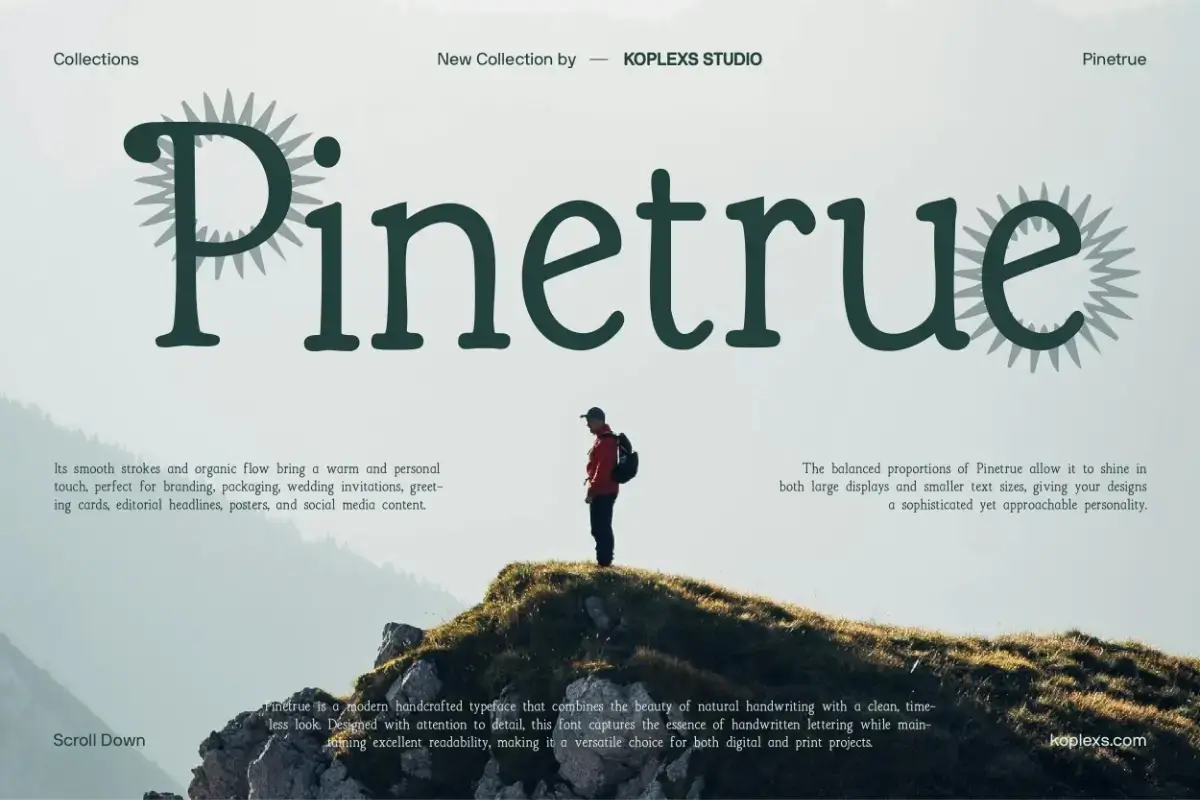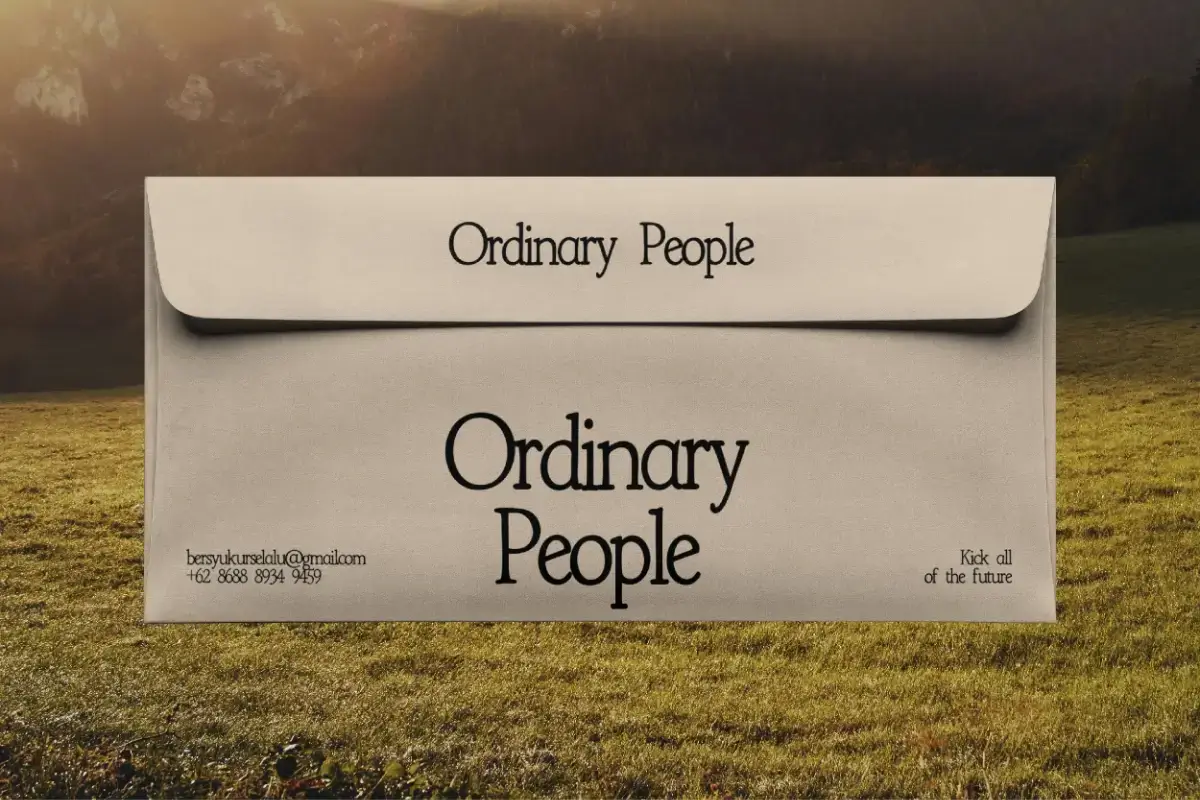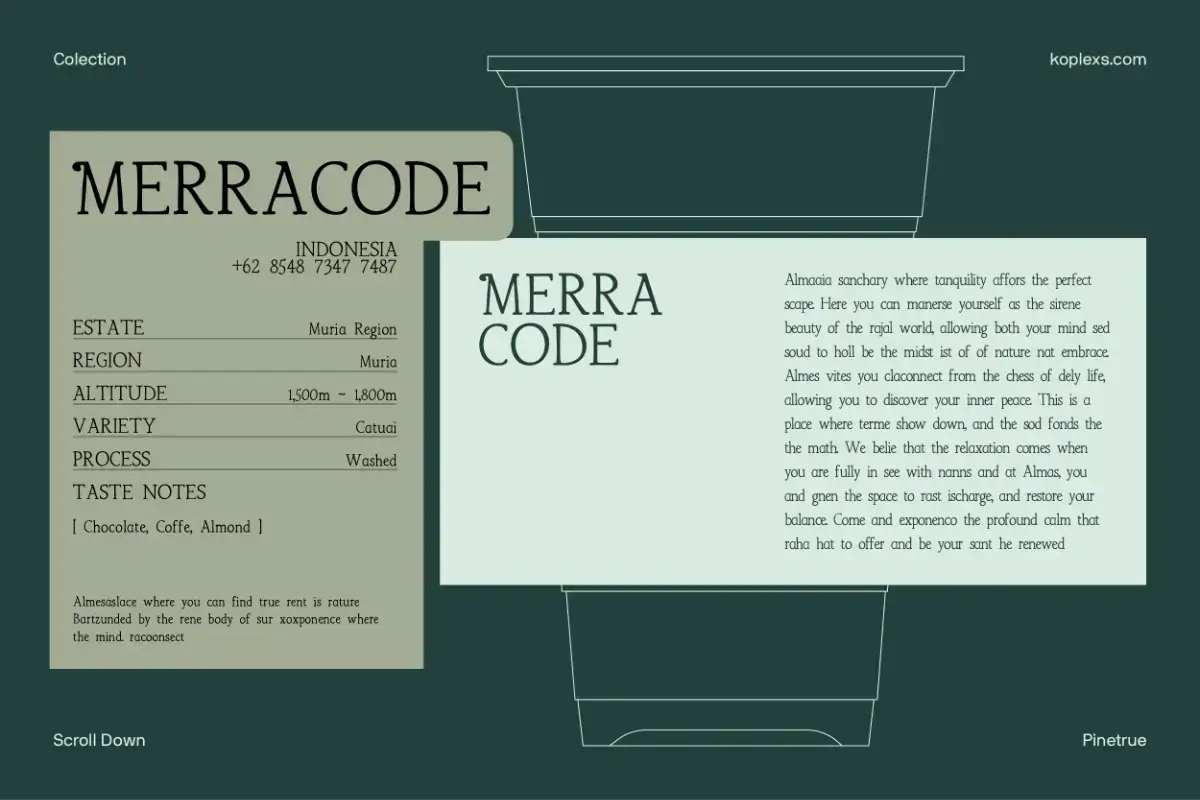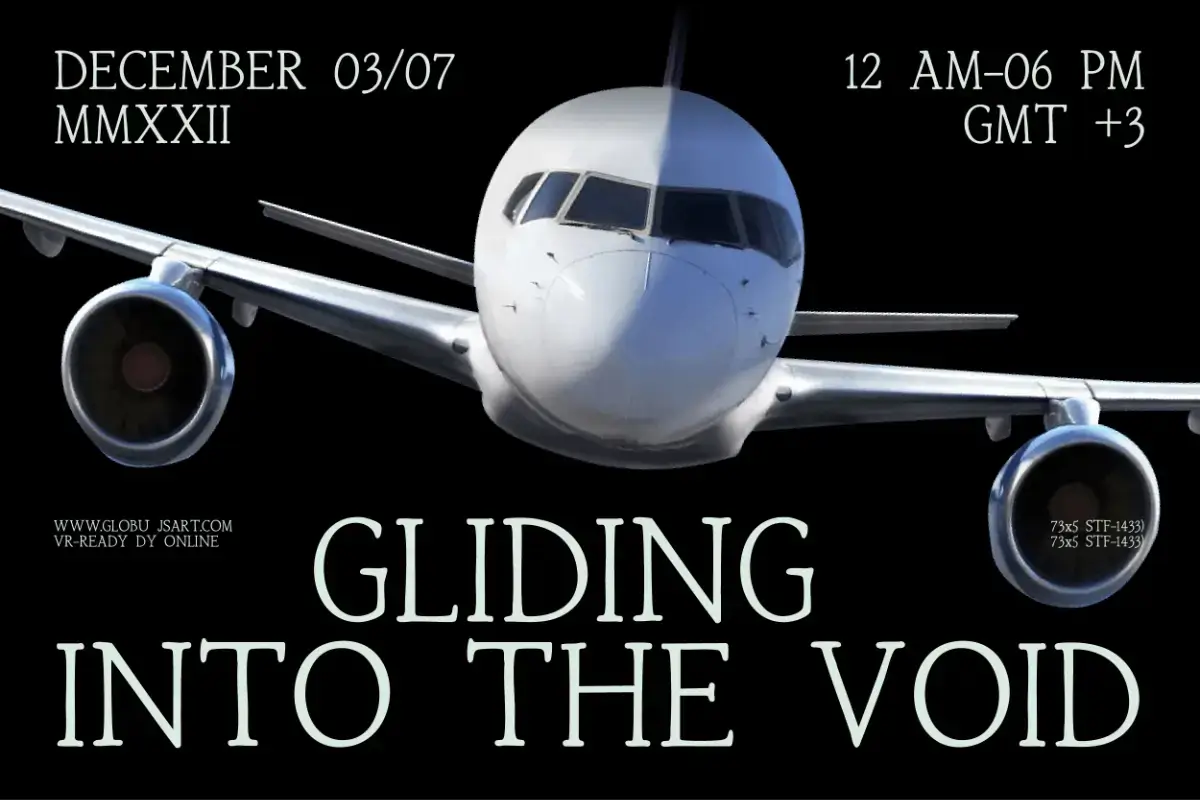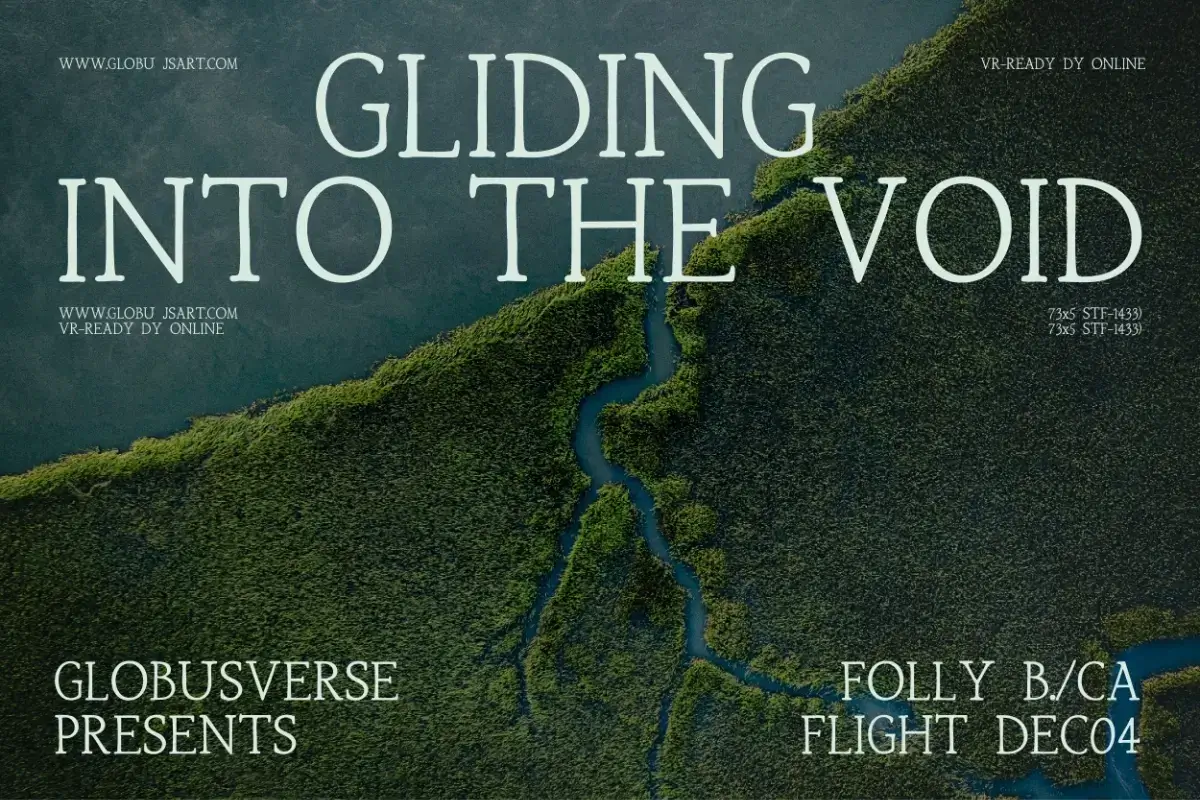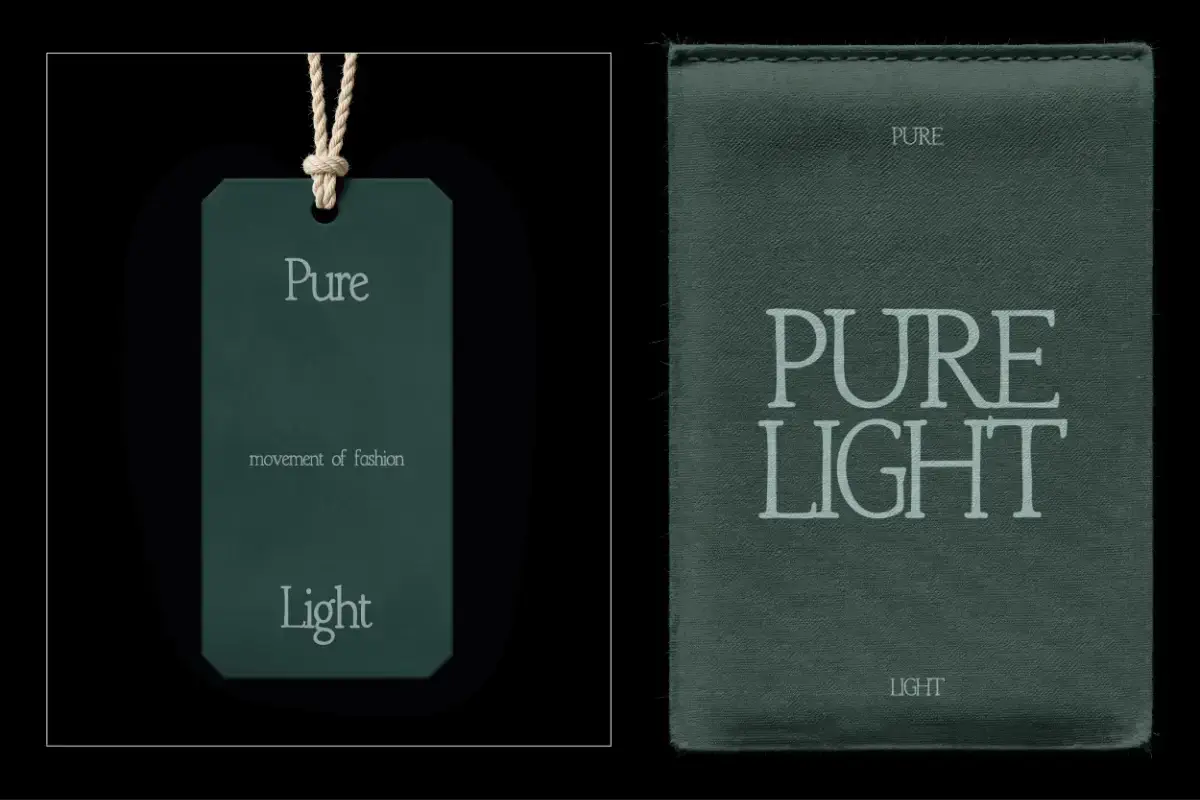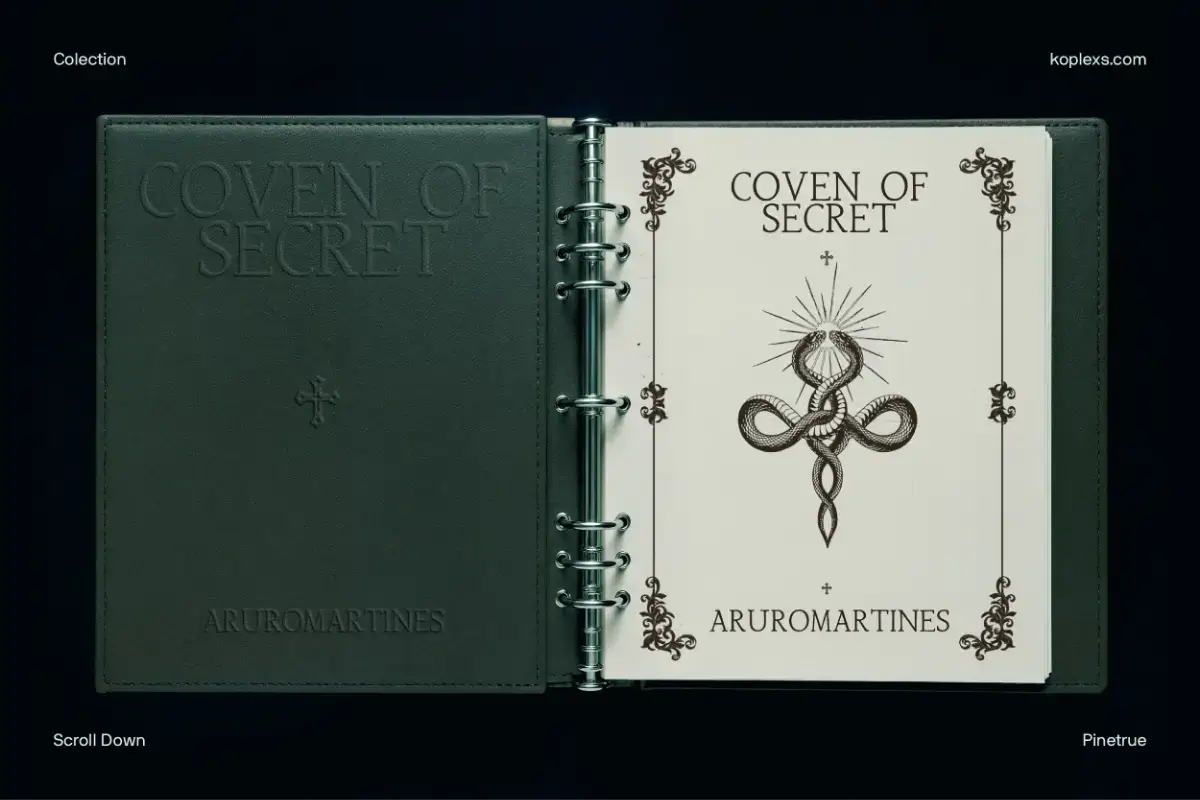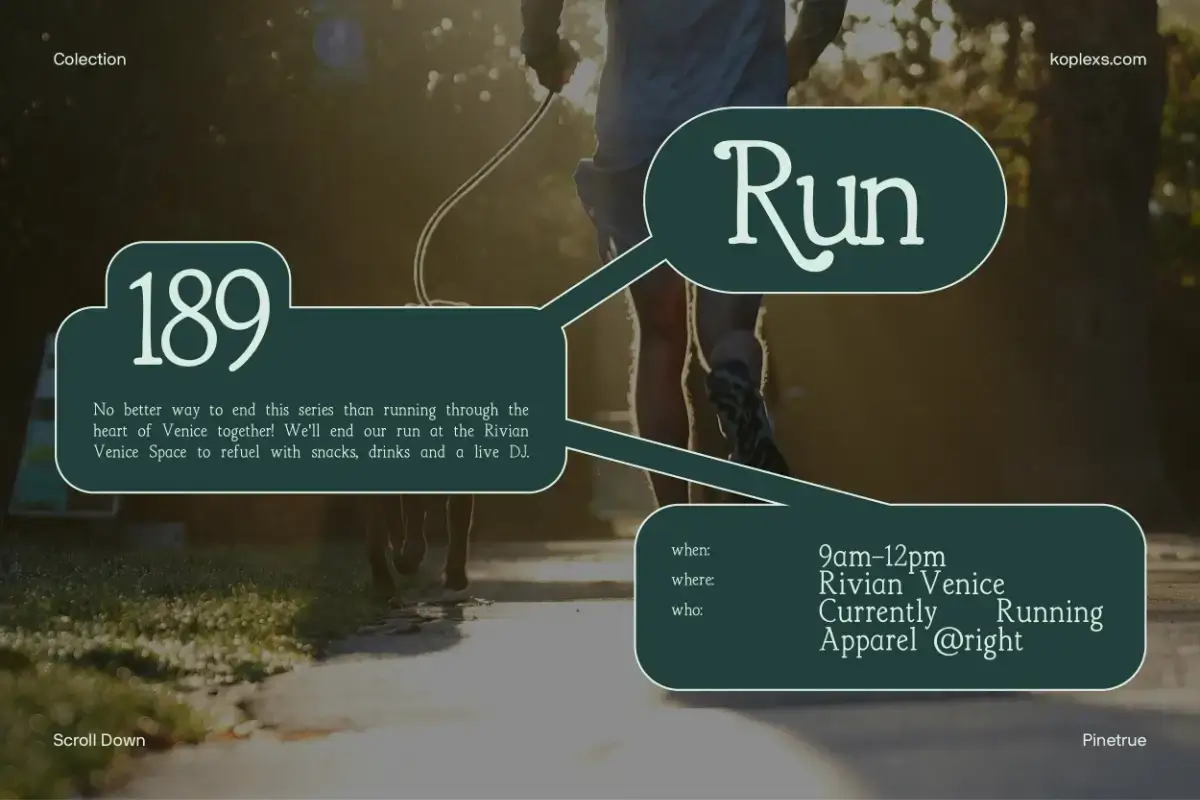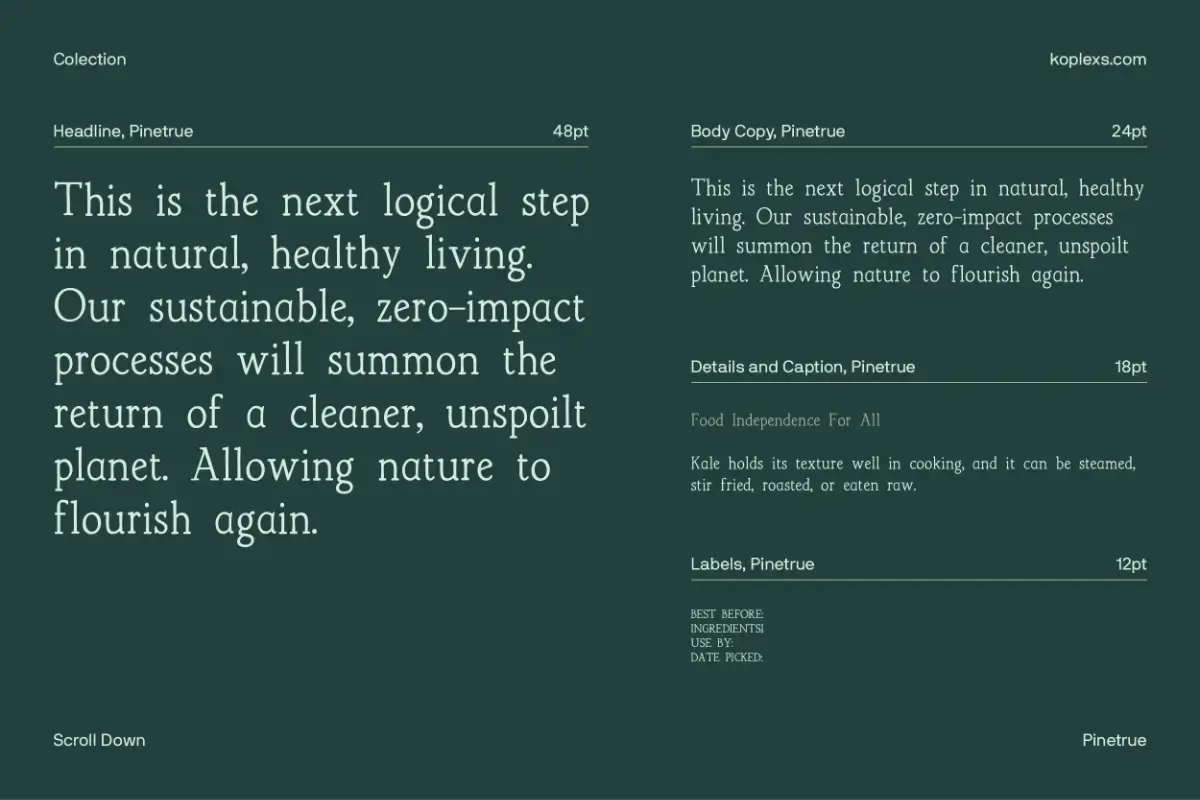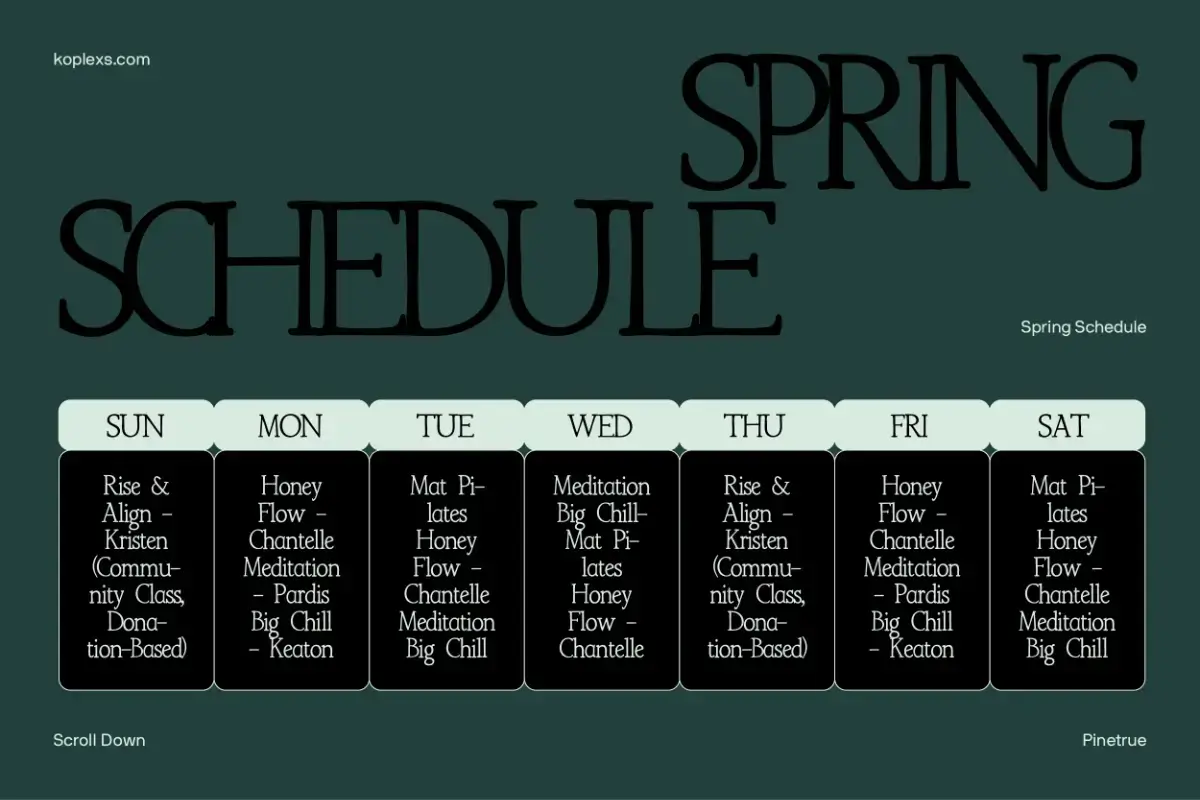
Pinetrue Font: Organic Serif for Branding and Editorials
Pinetrue Font is a handcrafted serif font that brings warmth, personality, and a natural rhythm to your typography. Soft serif details, gently irregular curves, and slender letterforms give it an inviting look with a quiet sense of craftsmanship. It feels at home on a thoughtfully designed coffee label, an independent magazine cover, or a brand identity built around a personal story.
Its character comes through in the details. Rounded stroke endings soften the letters, while subtle variations in their shapes create the feeling of lettering drawn by hand. The lowercase has an easy, conversational quality, and the uppercase brings a more composed presence to titles and brand names. Expressive alternate capitals offer another way to shape the mood, including a sweeping R that adds movement to a wordmark or headline.
This balance of familiar serif structure and organic detail makes Pinetrue a useful choice for designs that need to feel considered, creative, and approachable.
Pinetrue Font Best Suited For :
Pinetrue suits projects where the typography needs to communicate a sense of care, craft, or individuality.
- Logos and brand identities: Create wordmarks for independent shops, creative studios, boutique businesses, and lifestyle brands. Its recognizable letter shapes give a simple brand name plenty of character.
- Coffee and artisan packaging: Use it for coffee bags, cup designs, product names, tasting cards, and specialty food labels. The organic details complement paper textures and earthy colors.
- Editorial design: Bring personality to magazine titles, opening spreads, pull quotes, and feature headings, particularly for stories about culture, design, travel, and everyday living.
- Book covers and journals: Pair the serif forms with illustrations or decorative borders for literary covers, poetry collections, personal journals, and atmospheric fiction.
- Fashion branding: Use Pinetrue on clothing tags, collection titles, lookbooks, and boutique stationery for a thoughtful, understated presentation.
- Wedding invitations and stationery: Give names, announcements, greeting cards, and envelope designs a warm and personal voice.
- Wellness and nature projects: Its gentle shapes suit yoga studio identities, retreat brochures, botanical packaging, and outdoor event materials.
- Posters and social media graphics: Build expressive layouts for music announcements, community events, creative campaigns, and typographic quotes.